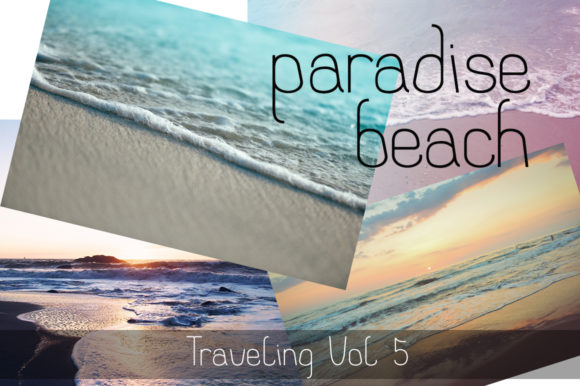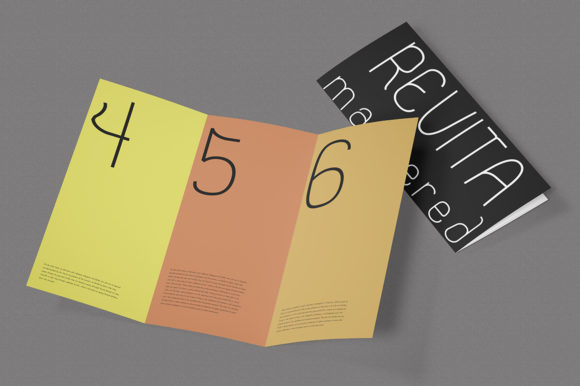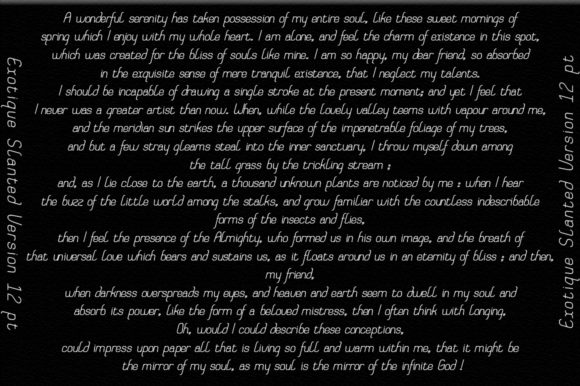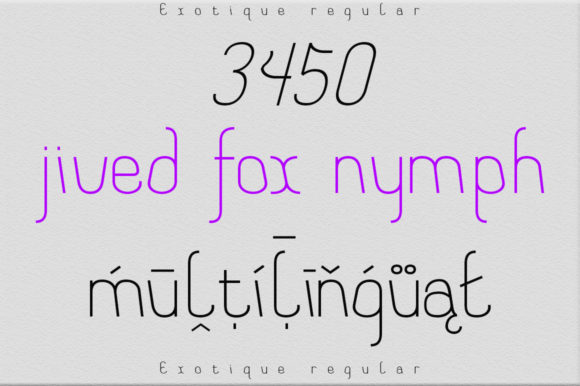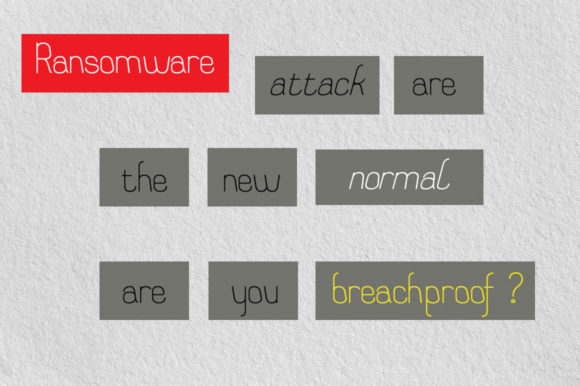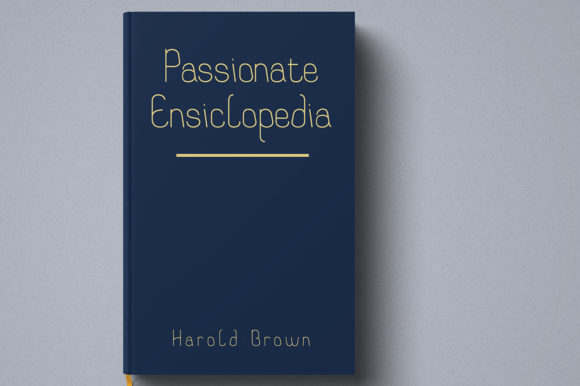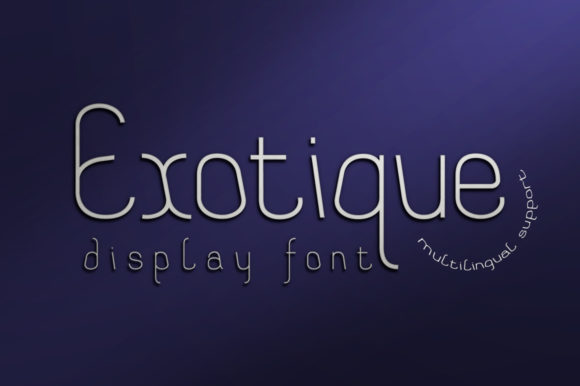
Introducing Exotique Font: Elevate Your Designs with Luxury and Versatility
In the world of typography, a font can make or break a design. For designers and crafters seeking to add a touch of luxury and sophistication to their projects, Exotique Font is an exceptional choice. This unique display font is equipped with multilingual characters, making it an ideal solution for a wide range of typographic applications. From branding and fashion designs to magazines, logos, and more, Exotique Font is designed to impress.
What Sets Exotique Font Apart?
Exotique Font is not just another font; it’s a versatile tool that can handle various design needs. Its key features include:
- Multilingual Characters: With a comprehensive set of characters, Exotique Font can handle most languages, making it perfect for global brands and multilingual projects.
- Multiple Weights: Exotique Font comes in various weights, allowing designers to choose the perfect style to suit their project’s tone and requirements.
- Inherent Readability: Despite its decorative nature, Exotique Font maintains high readability, making it suitable for body text and headlines alike.
Luxurious Applications for Exotique Font
Exotique Font’s luxurious feel makes it an excellent choice for high-end projects. Some ideal applications include:
- Fashion Designs: Add a touch of elegance to fashion magazines, clothing brands, and accessories with Exotique Font.
- Magazines and Publications: Use Exotique Font to create captivating headlines and articles that exude sophistication.
- Logos and Branding: Establish a luxurious brand identity with Exotique Font, perfect for high-end businesses and services.
- Photography: Enhance your photography portfolio or project with elegant typography that complements your images.
- Invitations and Quotes: Create stunning invitations, quotes, and posters that leave a lasting impression.
- Blog Headings and Posters: Elevate your blog or poster designs with Exotique Font’s unique and stylish aesthetic.
- Advertisements and Postcards: Grab attention with Exotique Font’s luxurious feel in advertisements and postcards.
Why Choose Exotique Font?
With so many fonts available, why choose Exotique Font? Here are a few compelling reasons:
- Unique Style: Exotique Font offers a distinct and stylish aesthetic that sets it apart from more traditional fonts.
- Versatility: Its wide range of applications makes Exotique Font a valuable addition to any designer’s toolkit.
- Readability: Despite its decorative nature, Exotique Font remains highly readable, making it suitable for a variety of uses.
Tips for Using Exotique Font Effectively
To get the most out of Exotique Font, consider the following tips:
- Pair with Simpler Fonts: Combine Exotique Font with simpler fonts for body text to create visual contrast and hierarchy.
- Experiment with Weights: Try different weights of Exotique Font to find the perfect balance for your design.
- Use for Headlines and Titles: Take advantage of Exotique Font’s luxurious feel by using it for headlines, titles, and key messages.
Exotique Font is a powerful tool for designers and crafters looking to add a touch of luxury and sophistication to their projects. With its unique style, multilingual characters, and versatility, Exotique Font is an excellent choice for a wide range of applications. Whether you’re working on fashion designs, magazines, logos, or more, Exotique Font is sure to elevate your designs and leave a lasting impression.